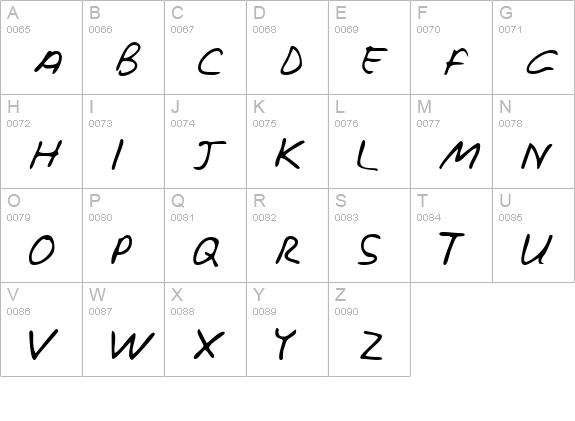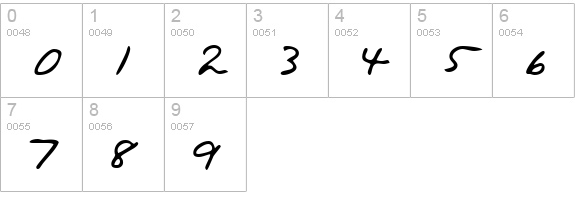
OrsonsHand Regular Font Details
OrsonsHand Regular is the standard, neutral variant in the OrsonsHand typeface family \xE2\x80\x94 well suited to general body text, paragraphs, and standard typographic work.
OrsonsHand Regular font is a charming and whimsical typeface that exudes a sense of playful elegance. With its hand-drawn style and unique character, this font is perfect for adding a touch of creativity to your projects. The flowing curves and distinctive letterforms make OrsonsHand Regular a versatile choice for a wide range of design applications. And the best part? OrsonsHand Regular is available for free download at FontsMarket.com. Embrace the creative possibilities with this delightful font and elevate your designs with its distinctive charm. Whether you're crafting invitations, branding materials, or social media graphics, OrsonsHand Regular will bring a touch of personality and flair to your work. Download it today and let your creativity shine with this beautiful typeface.